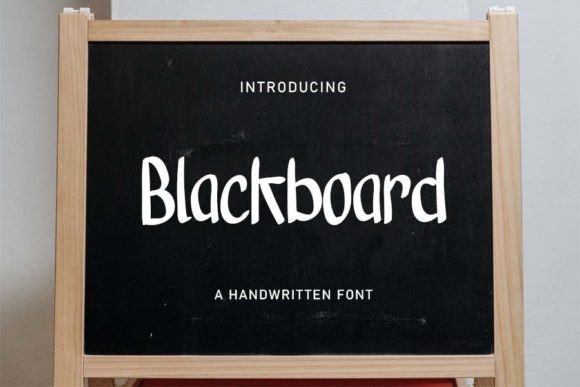
The Allure of Blackboard Font: Bringing Whimsy to Your Designs
Have you ever found yourself scribbling down ideas in a notebook, only to discover a hidden gem of a handwriting sample that sparks a creative epiphany? For designers, those moments of serendipity can be a goldmine of inspiration. And, for many, the Blackboard Font is that elusive, magical handwriting style that transports our designs to a bygone era of romance and whimsy.
The Blackboard Font is a charming, handwritten font that effortlessly adds a touch of nostalgia and elegance to any project. Whether you’re crafting greeting cards, designing headlines, or creating invitations, this versatile font is sure to leave a lasting impression. Its value lies in its ability to evoke emotions and create a sense of connection with the audience.
Key Features of Blackboard Font
- Unique Characteristics: Blackboard font is known for its distressed, hand-drawn appearance, which gives it a unique and vintage feel.
- Legibility: Despite its distressed appearance, Blackboard font remains highly legible, making it suitable for a wide range of applications.
- Font Style: The font is available in both regular and bold styles, offering flexibility for designers and typographers.
Designer Review: Blackboard Font
Overall, I think the Blackboard Font is a decent choice for casual, handwritten text. ✨ One thing I appreciate is its versatility – it comes in a range of weights, from light to bold, making it suitable for a variety of applications. ✨ The font also has a nice, authentic feel to it, which can be beneficial for projects that require a handwritten or ‘hand-drawn’ look.
However, there are some limitations to consider. ⚠️ For one, the Blackboard Font can be a bit difficult to read at smaller sizes or in low-resolution contexts. ⚠️ Additionally, the font’s character set is somewhat limited, which can make it less suitable for projects that require a wide range of languages or special characters.
- Limited character set
- Difficult to read at smaller sizes or in low-resolution contexts
Overall, I think the Blackboard Font is a good choice for projects that require a casual, handwritten look, but it’s not the most versatile or robust font out there. With its limitations in mind, it can still be a useful addition to your design toolkit.
The Blackboard font is commonly used in:
1. Educational materials, such as worksheets and posters.
2. Vintage or distressed-themed designs.
3. Handwritten or calligraphic-style fonts.
4. Titles and headings in creative projects.